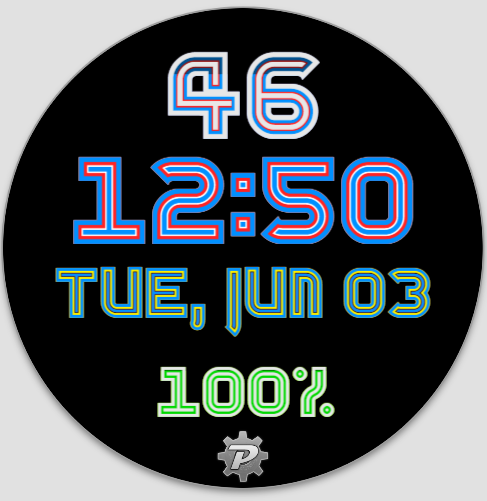
When color fonts are not supported, even the simple ones can work.
大きな曲線はどうやって作ったんだろうか…
すごいです!私もフォントを作りたくなってきました…!
just select the "connect" bricks in the left window